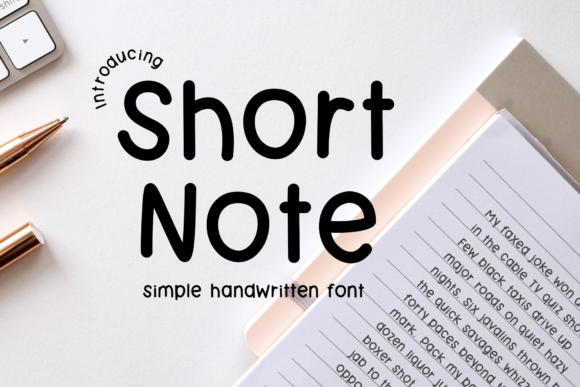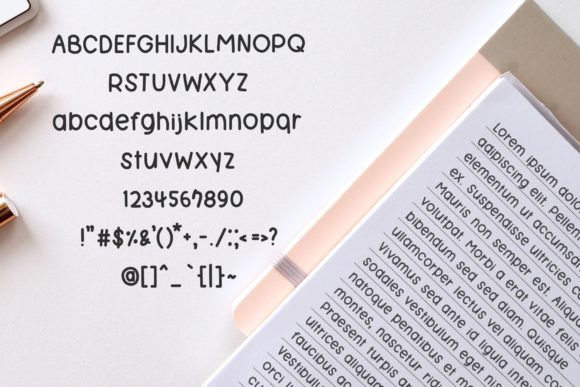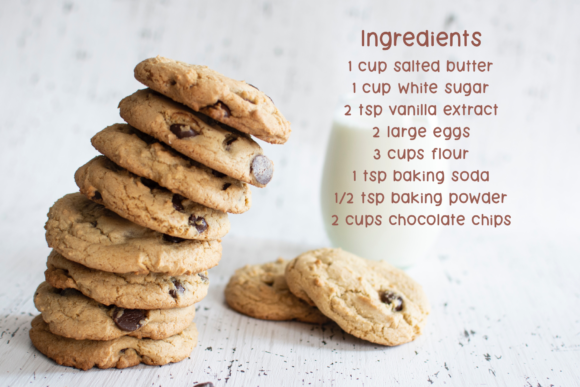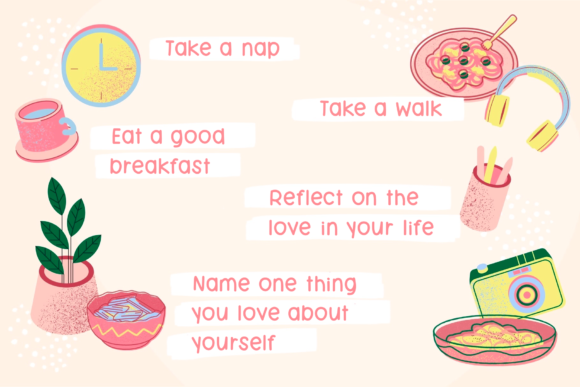
Short Note Font: A Cute Handwritten Font for Cricut & DIY Projects
About the Short Note Font
Unleash your creativity with Short Note Font, a versatile font perfect for a wide range of applications. Short Note is a simple and round-lettered handwritten font. You can use this font in various projects, blog posts, logos, invitations, greeting cards, planners, photo albums, decorations and much more.
Short Note Font Usage Examples
Short Note Font Example